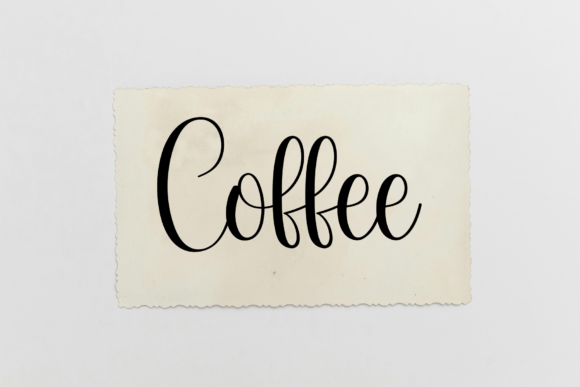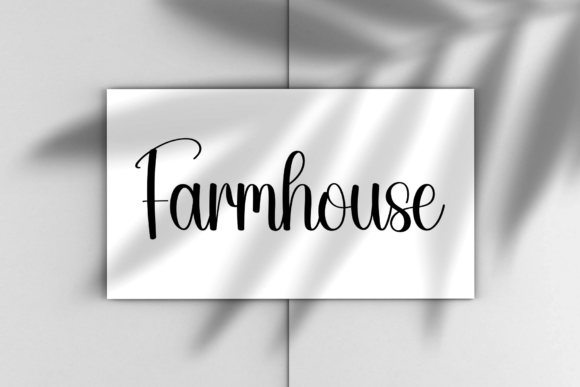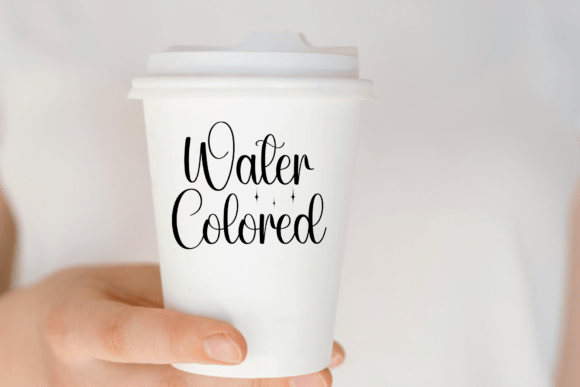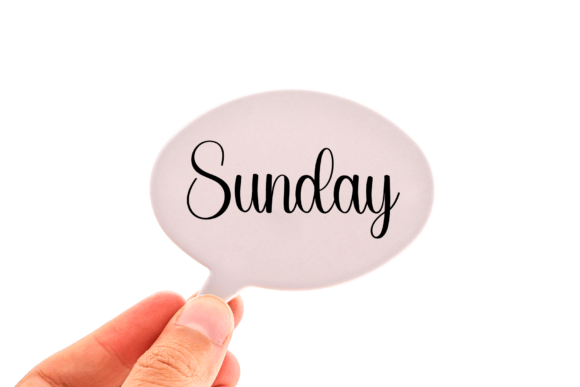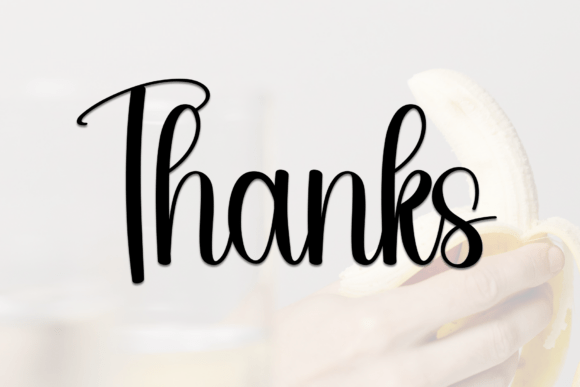
Introduction to Hello Banana Font
Have you ever been working on a creative project and suddenly, the perfect font pops up in your mind? For me, it was the Hello Banana Font that made my day. Its unique, handwritten style reminded me of a marker drawing, giving it a relaxed and sporty feel that’s perfect for branding, logos, and even wedding supplies.
As a designer, finding the right font can make all the difference in a project. It’s not just about aesthetics; it’s about conveying the tone and personality of your design. And that’s where the Hello Banana Font shines. With its high-quality design and transparent background, this font is a valuable resource for any creative project.
Key Features of Hello Banana Font
- Unique, playful design ideal for creative projects and fun designs
- High-quality font with a clear and legible design, suitable for various font sizes
- Perfect for adding a touch of whimsy to designs, logos, and branding materials
Honest Review: Hello Banana Font
I recently stumbled upon the Hello Banana Font and was excited to dive in and see what it had to offer. As a designer, I’m always on the lookout for high-quality design resources to elevate my creative projects.
First impressions: the Hello Banana Font is a charming, whimsical font that’s perfect for adding a playful touch to your designs. The transparent background allows for seamless integration with any background image or color.
- ✨ High-quality design: the font is crisp and clean, making it perfect for both digital and print designs.
- ✨ Versatile: the font can be used for a wide range of creative projects, from logos to typography-heavy designs.
- ⚠️ Limited character set: the font only includes a limited set of characters, which may not be suitable for more complex designs.
- ⚠️ Not suitable for body text: the font’s playful nature makes it more suitable for headings and titles rather than body text.
Overall, I’m impressed with the Hello Banana Font. While it may have some limitations, its high-quality design and versatility make it a valuable addition to any designer’s toolkit.
Use the Hello Banana Font in conjunction with other high-quality design resources to create a cohesive and visually appealing design. Experiment with different font sizes, styles, and colors to add depth and interest to your design. Consider using the font in a creative project, such as a logo or branding material.
The Hello Banana Font is a versatile design resource that can be used in a variety of projects, including: logos, branding materials, social media graphics, and web design elements. Its high-quality design and transparent background make it an ideal choice for designers looking to add a creative touch to their projects.